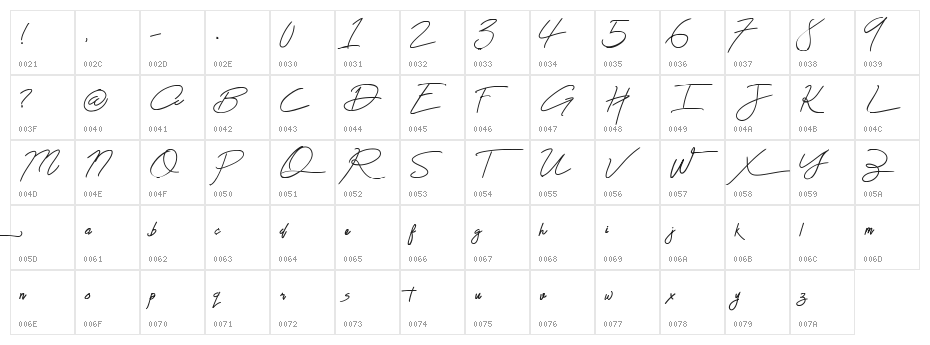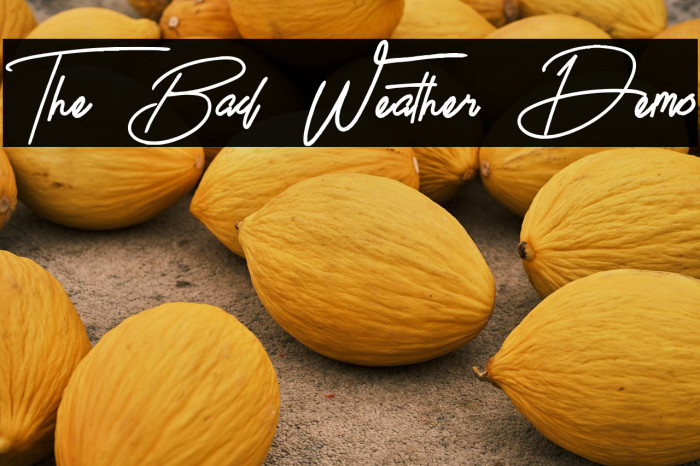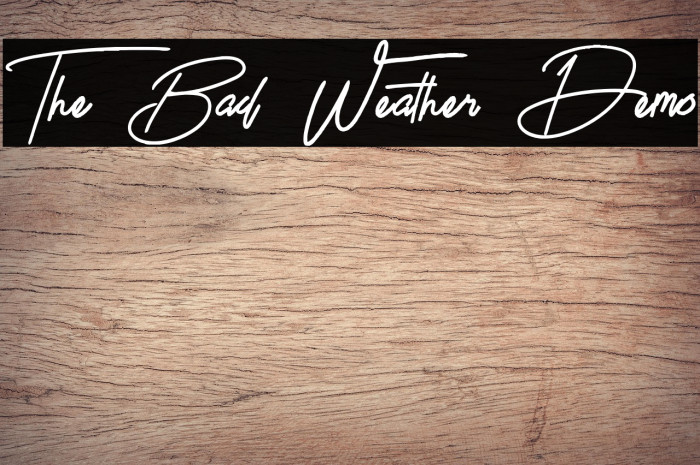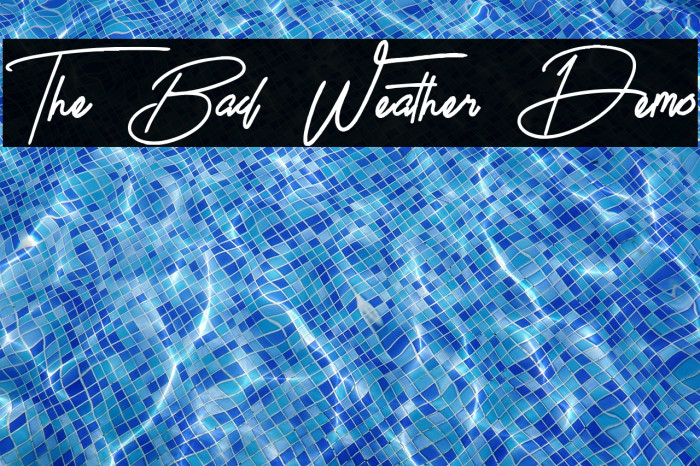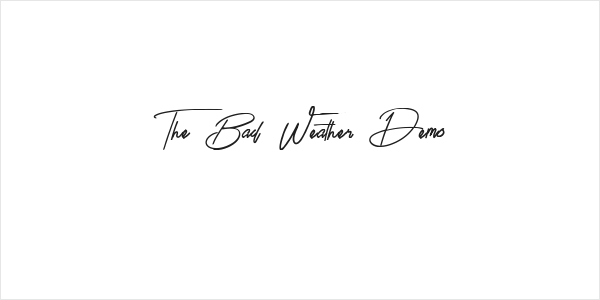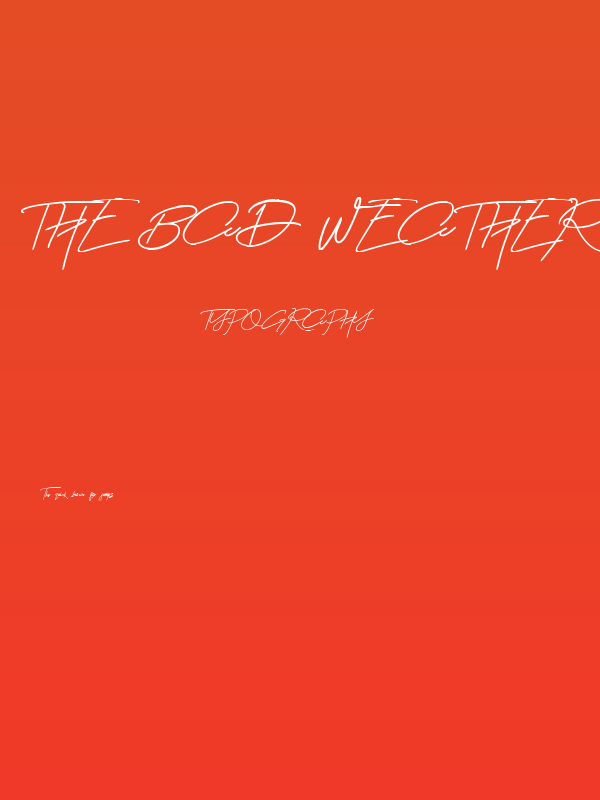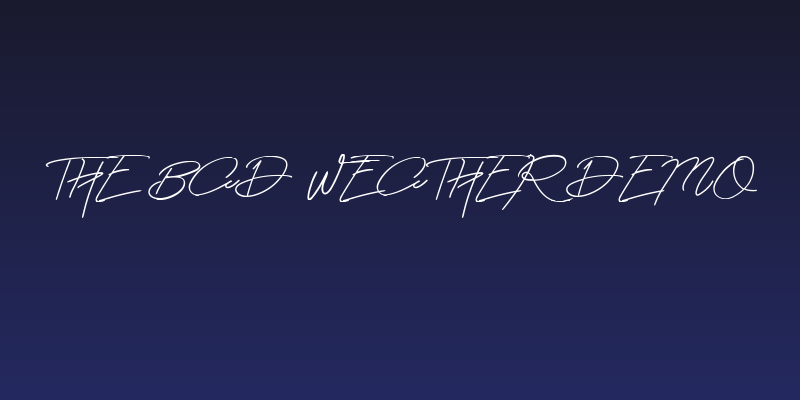
The Bad Weather Demo Font
The Bad Weather Demo Description
This font features an elegant, flowing script style that mimics the fluidity of natural handwriting. The characters are interconnected with smooth, sweeping strokes, giving it a dynamic and lively appearance. The uppercase letters are particularly ornate, with extended lines and loops that add a touch of sophistication. The lowercase letters maintain a consistent style, with a slightly more compact form that complements the uppercase. Numbers and special characters are designed with the same attention to detail, ensuring a cohesive look across all elements. The overall impression is one of grace and movement, making it suitable for projects that require a personal, artistic touch.